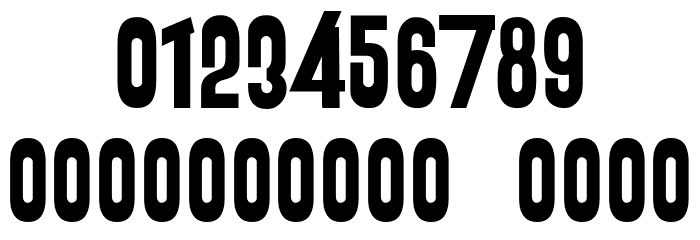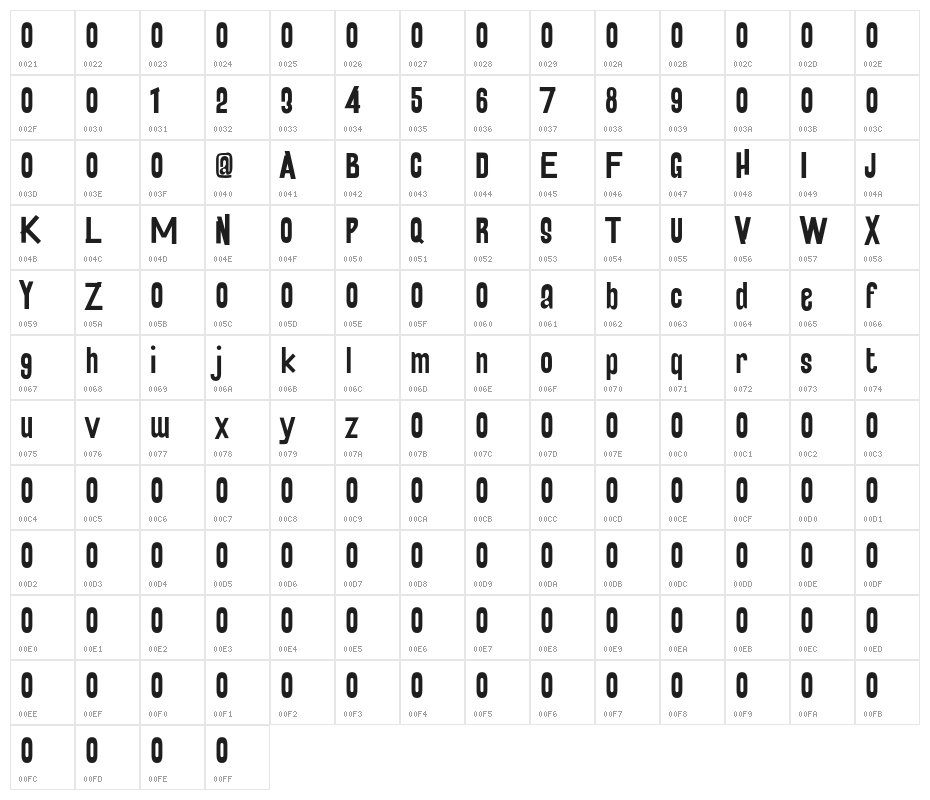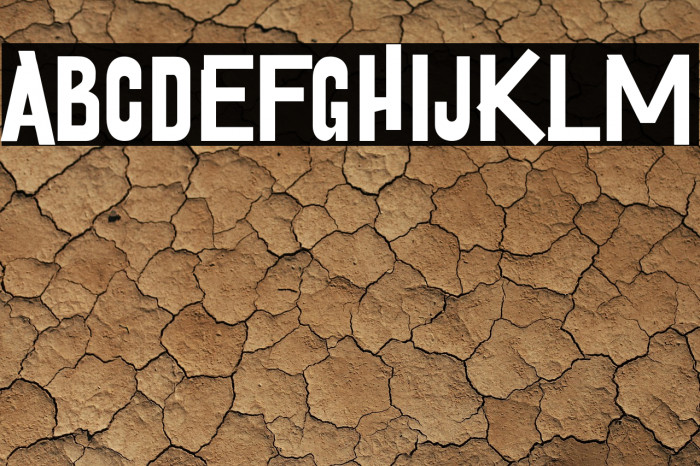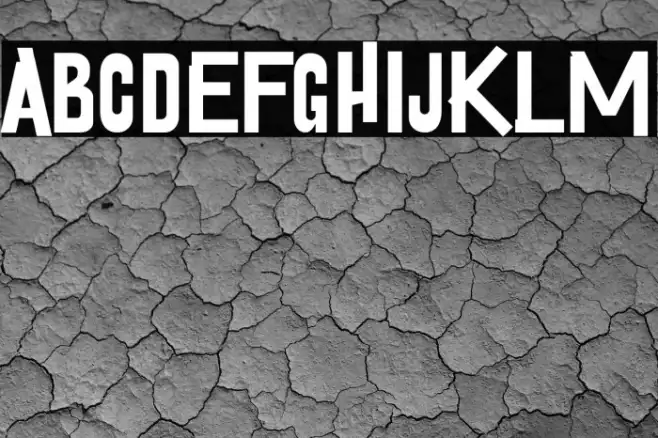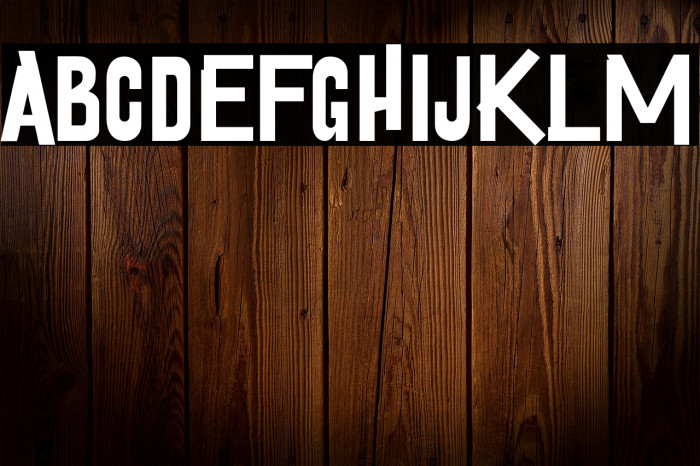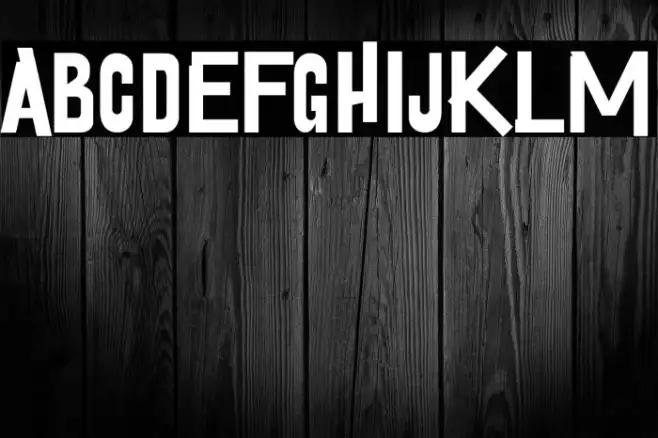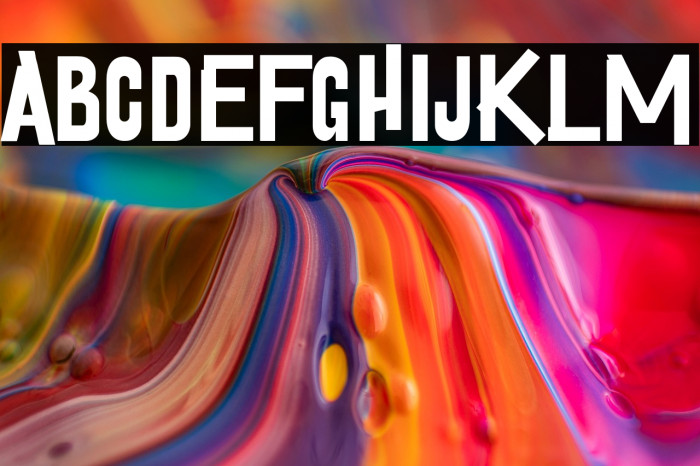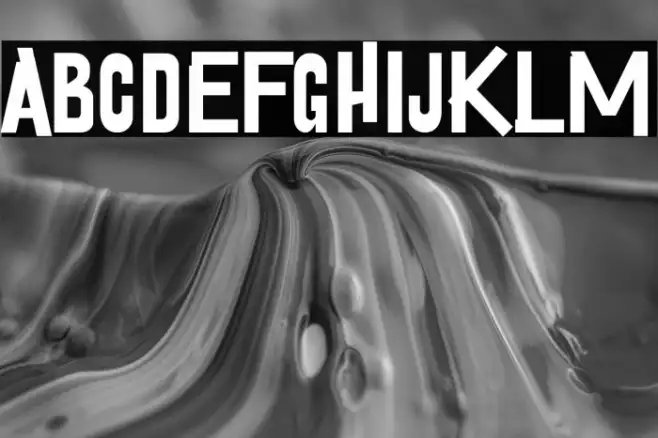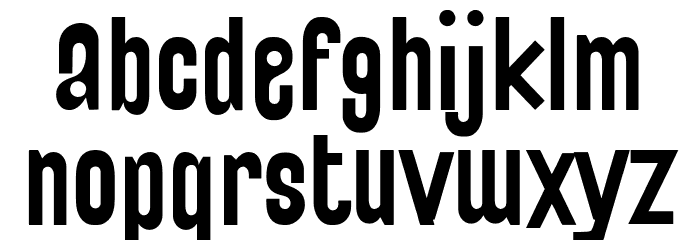
NewbeatsDemo Font
NewbeatsDemo Description
This font features a bold and impactful design with a strong presence. The characters are tall and slightly condensed, giving a modern and assertive look. The uppercase letters are particularly striking, with a uniform stroke width that enhances readability and visual appeal. The lowercase letters maintain the same boldness, ensuring consistency across text. Numbers are clear and distinct, making them suitable for various applications. The overall style is clean and contemporary, with a touch of vintage flair due to its geometric shapes and solid structure.